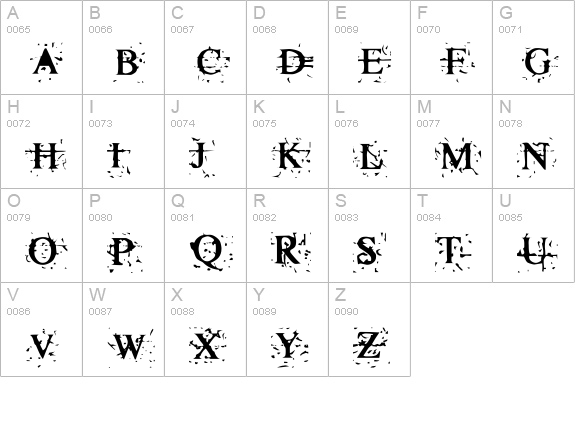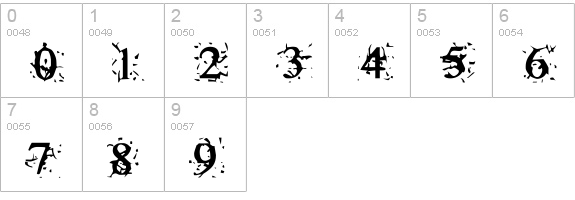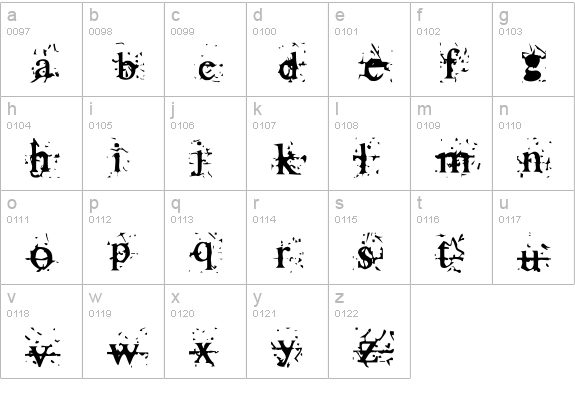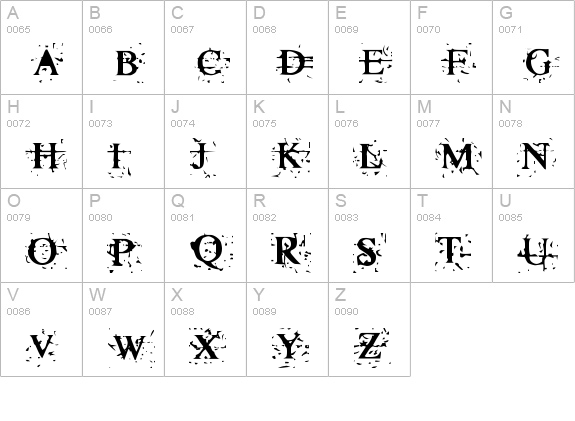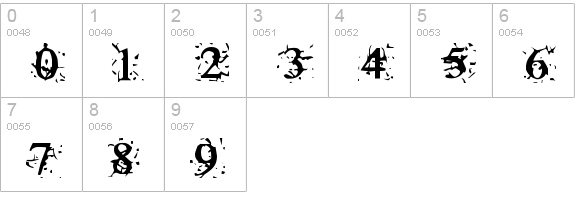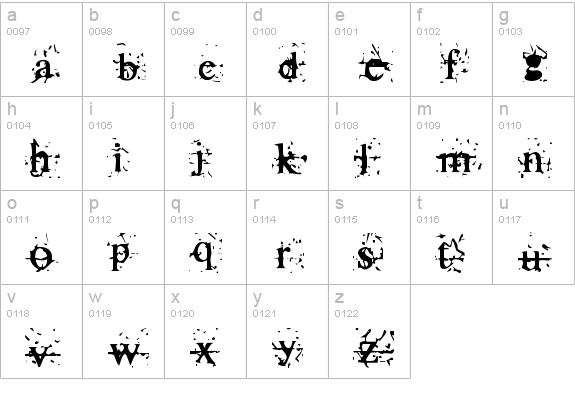
Mosh Pit Font Details
Mosh Pit font is a bold and dynamic typeface that captures the energy and excitement of a raucous concert mosh pit. With its rugged edges and rebellious spirit, this font is perfect for capturing the essence of rock music, punk culture, and underground scenes. The Mosh Pit font exudes a sense of raw power and unbridled energy, making it ideal for posters, album covers, t-shirts, and other design projects that demand attention. What's more, Mosh Pit font is available for free download at FontsMarket.com. This means you can add this electrifying font to your design arsenal without spending a dime. Don't miss out on the opportunity to unleash the wild and untamed spirit of Mosh Pit font in your next creative project. Download it now and let your designs rock and roll!